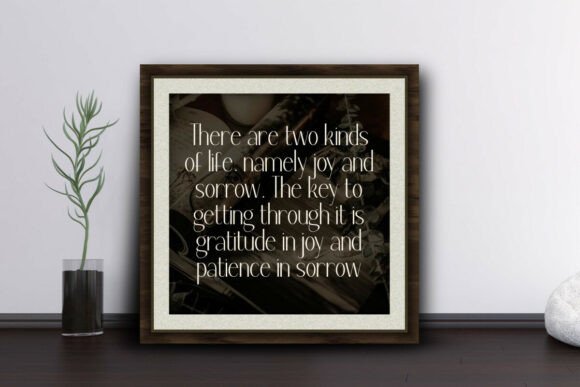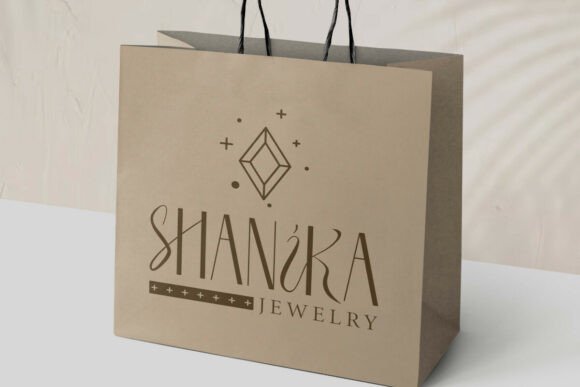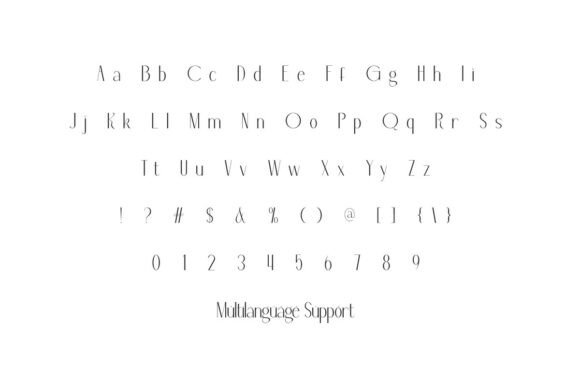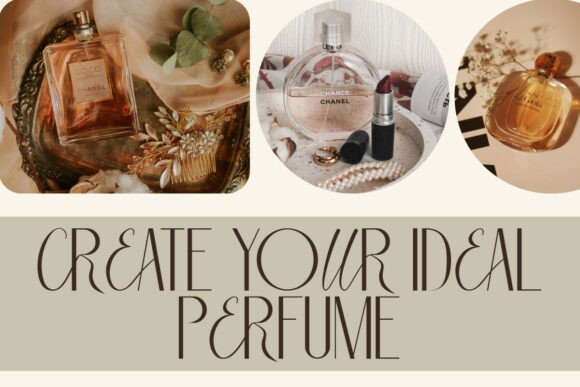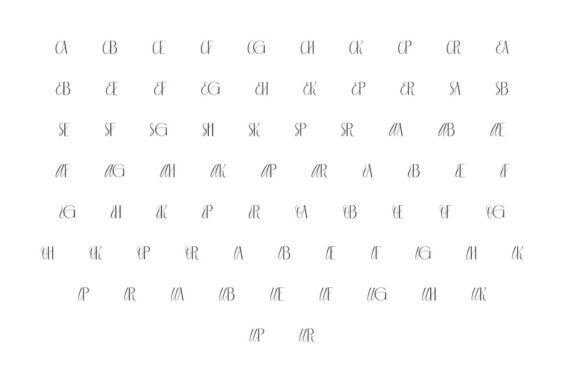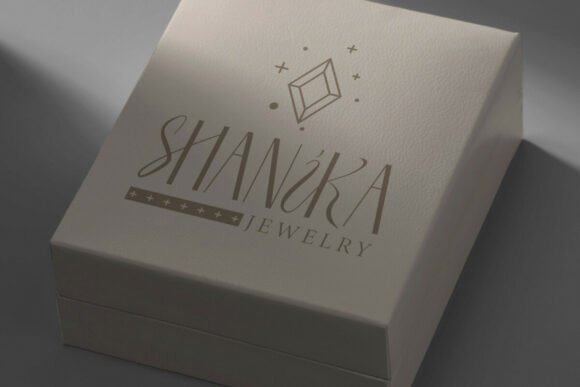
Introduction to Megasari Font
As a designer, have you ever been captivated by the subtle nuances of a well-crafted font? For me, it’s those moments of serendipity when I stumble upon a typeface that not only elevates my creative project but also speaks to my sense of style. The Megasari Font is one such discovery that has left me spellbound. Its breathtaking minimalism is a masterclass in balancing structure and spontaneity, making it the perfect design resource for high-end luxury branding and exclusive editorial design.
The Megasari Font is a game-changer for designers seeking to communicate sophistication and modernity with a whisper rather than a shout. Its ultra-thin display font is a work of art, playing with the principles of linear contrast and negative space to create an immediate visual impact. Whether you’re working on a fine art print, a gallery exhibition, or a haute couture project, the Megasari Font is sure to elevate your design to the next level.
Key Features of Megasari Font
- High-quality design resource for creative projects, perfect for digital art and graphic design.
- Unique, modern design with a transparent background, allowing for seamless integration into various design elements.
- Perfect for use in digital design, graphic design, and creative projects that require a modern and stylish font.
Honest Review: Megasari Font
I recently stumbled upon the Megasari Font while searching for a unique design resource for a creative project. This font has garnered attention for its quirky and modern aesthetic, making it a great addition to any high-quality design.
- What works well: ✨ The Megasari Font features a transparent background, allowing for seamless integration with various design elements. Its versatility and unique style make it an excellent choice for creative projects.
However, there are a few limitations to consider: ⚠️ The font may not be suitable for all design contexts, particularly those requiring a more formal or traditional look.
Overall, I’m impressed with the Megasari Font’s creative potential and its ability to elevate a design. While it may not be the best fit for every project, it’s definitely a valuable addition to any designer’s toolkit. With its high-quality design and transparent background, it’s a great choice for designers looking to add some visual interest to their work.
The Megasari Font is ideal for various creative projects, including logos, business cards, and social media graphics. Its unique design and transparent background make it a great choice for designers who want to create eye-catching and professional-looking designs.